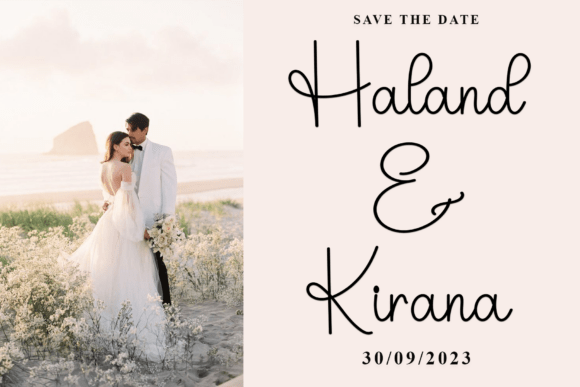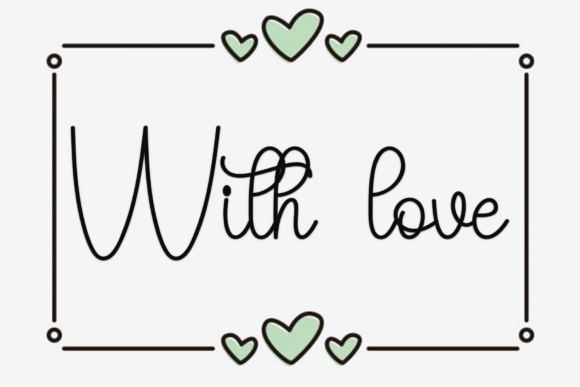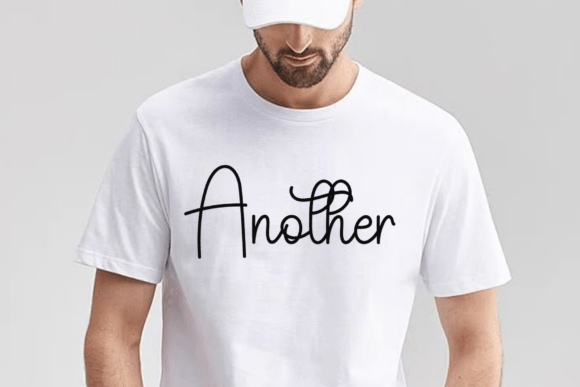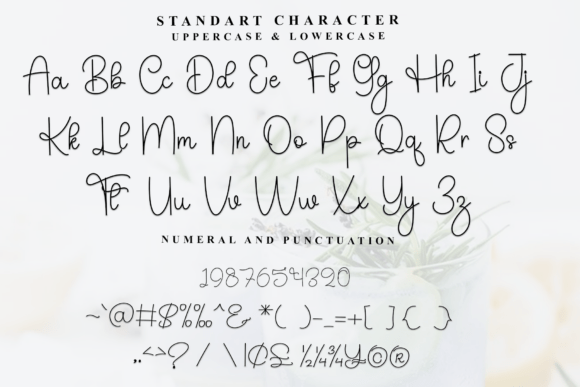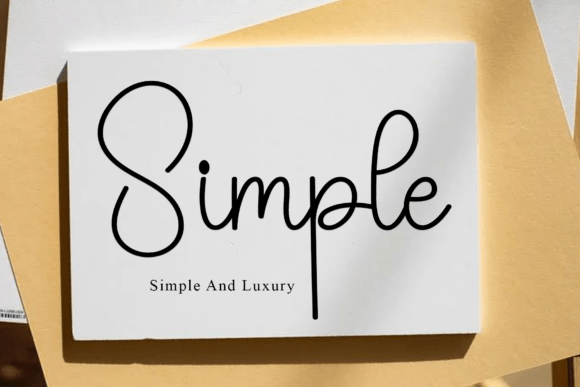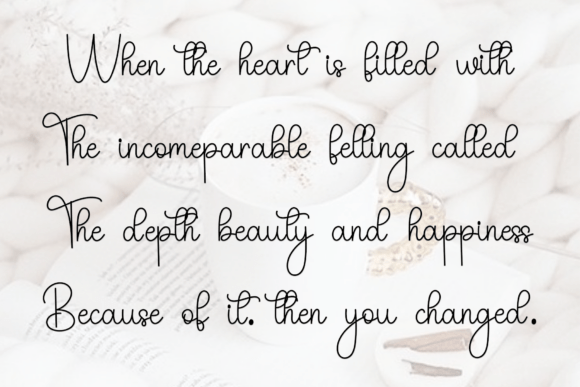
Introduction to Pink Venom Font
Have you ever been working on a creative project, pouring your heart and soul into it, and then – BAM! – the perfect font comes along and elevates the entire design to the next level? That’s exactly what happened to me when I stumbled upon the Pink Venom Font. Its sleek, stylish script and edgy twist made me go from “meh” to “wow” in a split second.
As a designer, I can attest that finding the right font can be a game-changer. And the Pink Venom Font is no exception. With its clean lines, subtle curves, and high-quality design, it’s perfect for fashion blogs, cosmetics branding, and bold statement designs. Plus, it’s available for free download, making it an even more valuable resource for designers.
Whether you’re working on a personal project or a client’s design, the Pink Venom Font is sure to bring a touch of sophistication and creativity to your work. And with its transparent background, it’s easy to use and customize to fit your needs.
Pink Venom Font
- High-quality font suitable for creative projects, available for free download.
- Unique, bold design with a transparent background, perfect for adding a touch of edginess to your designs.
Honest Review: Pink Venom Font
As a designer, I’ve come across numerous fonts that claim to be high quality, but few truly deliver. The Pink Venom Font is a refreshing exception. I downloaded it for free, and was pleasantly surprised by the level of detail and creativity that went into its design.
One of the standout features of the Pink Venom Font is its transparent background, making it a great resource for designers working on creative projects. It’s perfect for adding a touch of sophistication to logos, branding materials, or even digital art.
Here are some things that work well with the Pink Venom Font:
- ✨ High quality design that looks great on any medium
- ✨ Versatile and suitable for various creative projects
That being said, there are a few limitations to consider:
- ⚠️ Limited font sizes and styles, which may not be ideal for large-scale design projects
- ⚠️ Not suitable for body text, as it’s more decorative than functional
Overall, I’m impressed by the Pink Venom Font’s design and versatility. While it may not be perfect, it’s a great addition to any designer’s toolkit, and its transparent background makes it a valuable resource for creative projects.
Tips for Getting the Most Out of Pink Venom Font
To get the most out of the Pink Venom Font, use it with a transparent background to create a striking visual effect. You can also pair it with other fonts to create a unique and eye-catching design. Experiment with different font sizes and styles to find the perfect combination for your creative project.
The Pink Venom Font is perfect for creating bold and eye-catching headlines, titles, and text overlays. It’s also great for adding a touch of personality to your social media graphics, blog posts, and marketing materials. With its high-quality design and free download, the Pink Venom Font is a must-have design resource for any creative project.